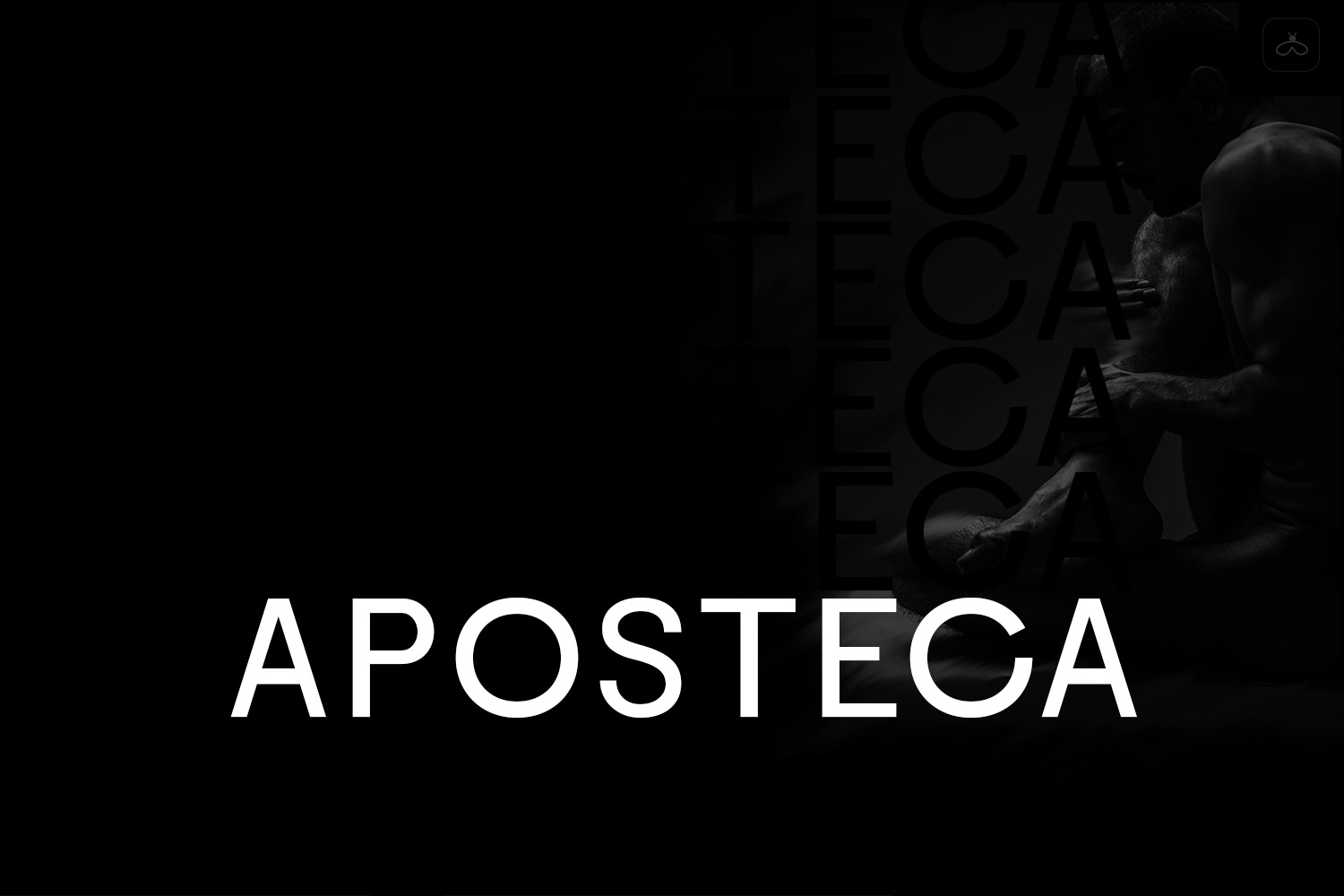
Aposteca Font
Aposteca is a unique and modern display typeface perfect for headlines, big text, branding, logotypes & display usage. This font can be the perfect choice for outstanding logos, promotional content, and marketing graphics that can bring uniqueness and freshness at its level best. The typeface will be perfect for creating unique monograms, logos, and identities with these combinations.